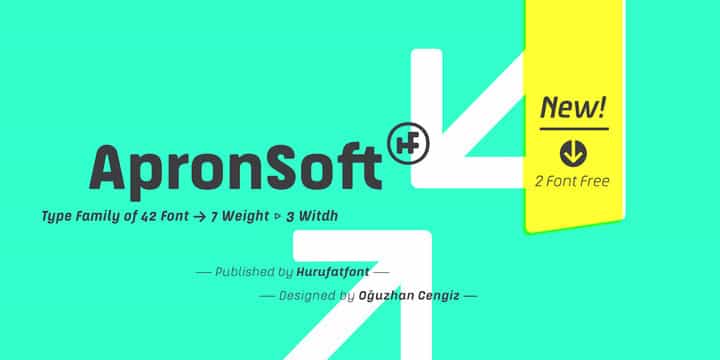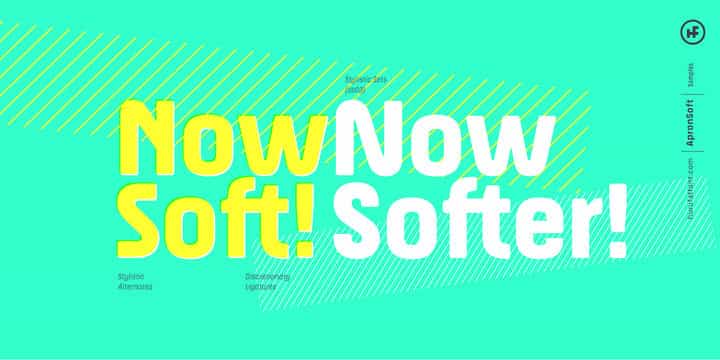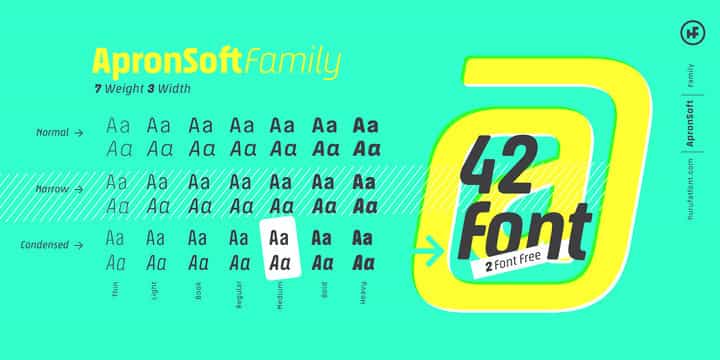
Soft-vertical structure from the airplane window is the primary motivation that led to the creation of the ApronSoft font type family. On the other hand ApronSoft is trying to refer to technological design mentality of the beginning of coming years or specifically time of 2000’s. Thus, in brief texts, it has a stable view and also a humanist impact.